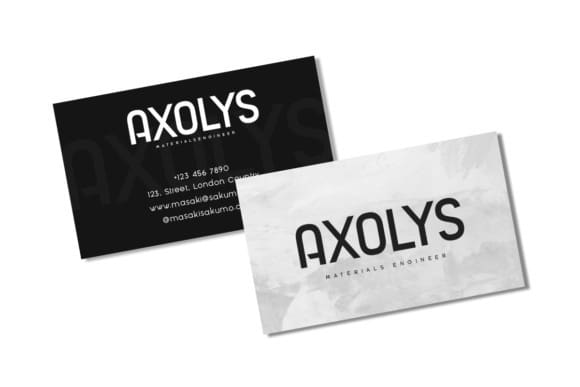
Rocky Font
Rocky Font is a modern masculine font that has been created specially for branding, titles and more stand out typography for sport and action. It’s so perfect to add your projects and headline overview for sports, technology, actions, fighting themes and so much more.